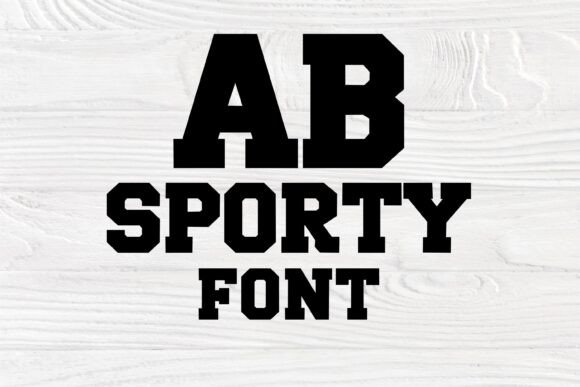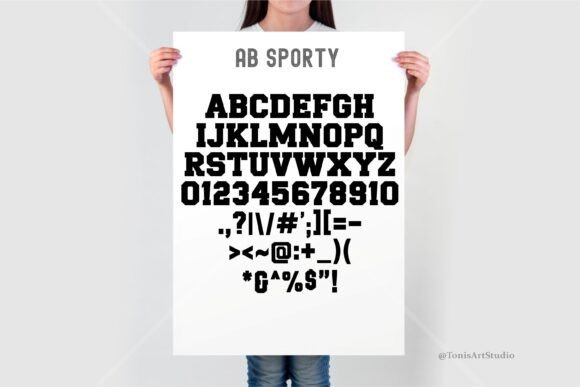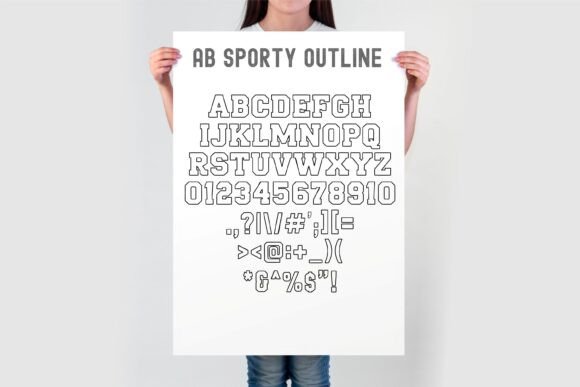
Unleash Your Creativity with AB Sporty Font: The Ultimate Choice for Bold and Dynamic Designs
Are you looking for a font that can add a bold, athletic edge to your designs? Look no further than the AB Sporty font, now available in two exciting varsity-inspired styles: Bold and Outline. This versatile font is perfect for projects that require a strong and dynamic look, making it an ideal choice for sports branding, team logos, school spirit wear, and custom merchandise.
About AB Sporty Font
The AB Sporty font is designed to bring a fresh and energetic feel to your designs. With its clean lines and powerful appearance, this font is sure to make a statement. The Bold style delivers a confident and sporty vibe, while the Outline version offers a creative and versatile touch. Whether you’re working on a sports team logo, a school project, or a custom merchandise design, the AB Sporty font is the perfect choice.
Key Features of AB Sporty Font
- Two Varsity-Inspired Styles: The AB Sporty font is available in two exciting styles: Bold and Outline. The Bold style is perfect for designs that require a powerful and clean appearance, while the Outline version offers a versatile and creative touch.
- Perfect for Sports Branding and Team Logos: The AB Sporty font is designed to meet the needs of sports teams, making it an ideal choice for logos, jerseys, and other sports-related designs.
- Ideal for School Spirit Wear: The font’s varsity-inspired style makes it perfect for school spirit wear, including t-shirts, hoodies, and other custom merchandise.
Using AB Sporty Font for Your Designs
The AB Sporty font is easy to use and can be applied to a wide range of design projects. Here are a few ideas to get you started:
- Sports Team Logos: Use the Bold style to create a powerful and confident logo for your sports team.
- School Spirit Wear: The Outline version is perfect for creating custom school spirit wear, including t-shirts, hoodies, and other merchandise.
- Custom Merchandise: Use the AB Sporty font to create custom merchandise, such as water bottles, phone cases, and more.
Benefits of Using AB Sporty Font
There are many benefits to using the AB Sporty font for your designs. Here are a few:
- Unique and Versatile: The AB Sporty font offers a unique and versatile style that can be used for a wide range of design projects.
- Easily Customizable: The font is easily customizable, allowing you to adjust the size, color, and style to fit your design needs.
Tips and Tricks for Using AB Sporty Font
Here are a few tips and tricks to help you get the most out of the AB Sporty font:
- Experiment with Different Colors: Try experimenting with different colors to find the perfect combination for your design.
- Use the Outline Version for Creative Effects: Use the Outline version to create creative effects, such as adding a stroke or shadow to your text.
- Pair with Other Fonts: Try pairing the AB Sporty font with other fonts to create a unique and interesting design.
The AB Sporty font is a versatile and dynamic font that’s perfect for designers and crafters looking to add a bold, athletic edge to their designs. With its two varsity-inspired styles, Bold and Outline, this font is ideal for sports branding, team logos, school spirit wear, and custom merchandise. Compatible with popular cutting machines like Cricut and Silhouette, the AB Sporty font is a must-have for any designer or crafter looking to create high-quality designs.